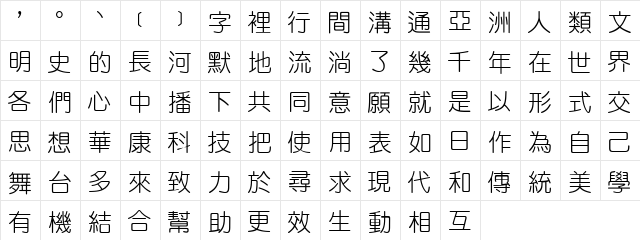
DFYuanLight1B Regular
Design Context for DFYuanLight1B Typeface
DFYuanLight1B takes a measured approach to typography — its balanced proportions and neutral character make it a reliable workhorse for both digital and print work. The delicate stroke weight brings airiness and refinement to layouts.